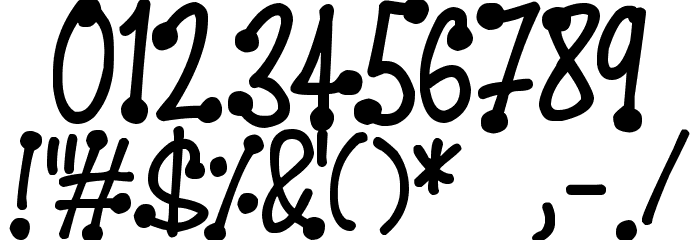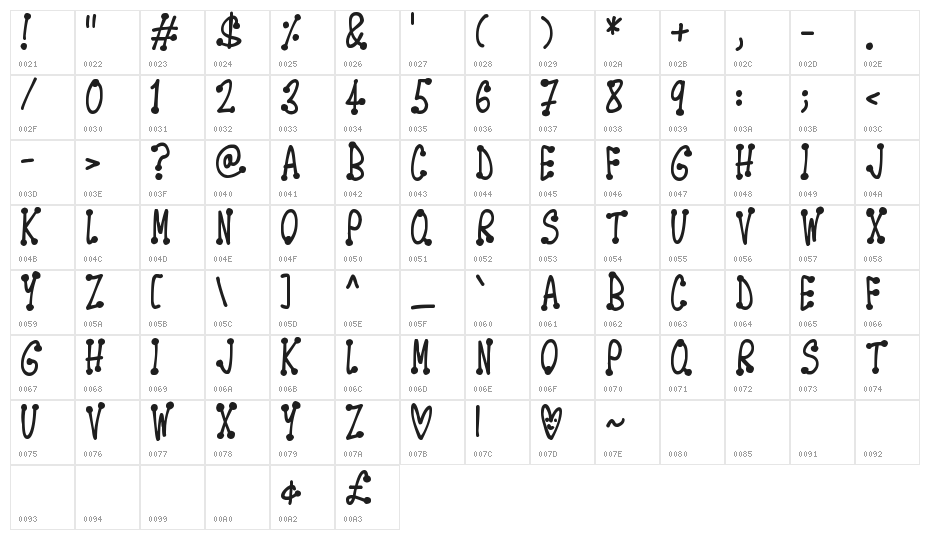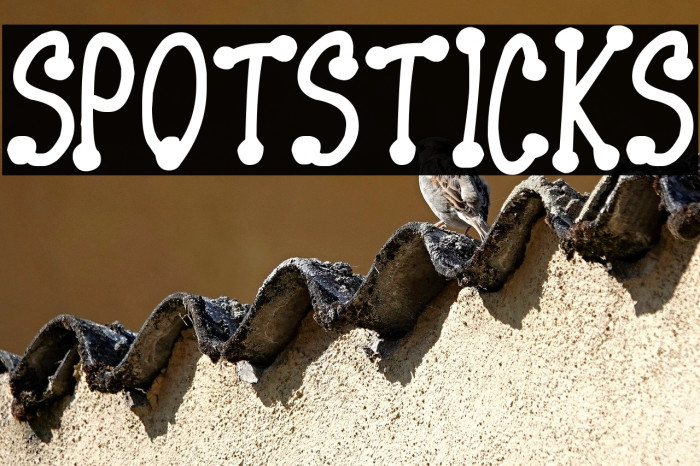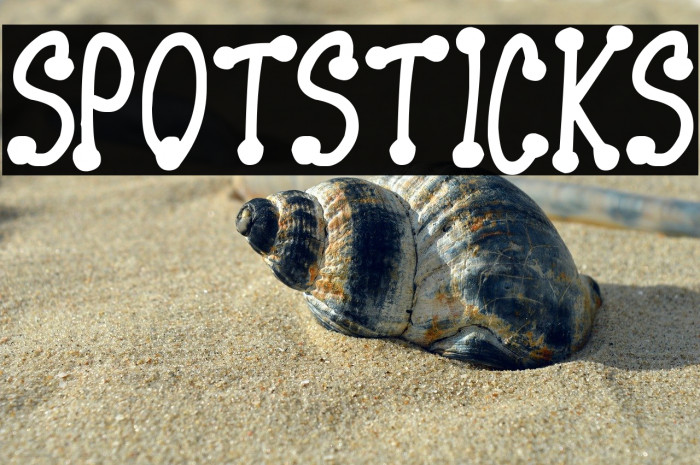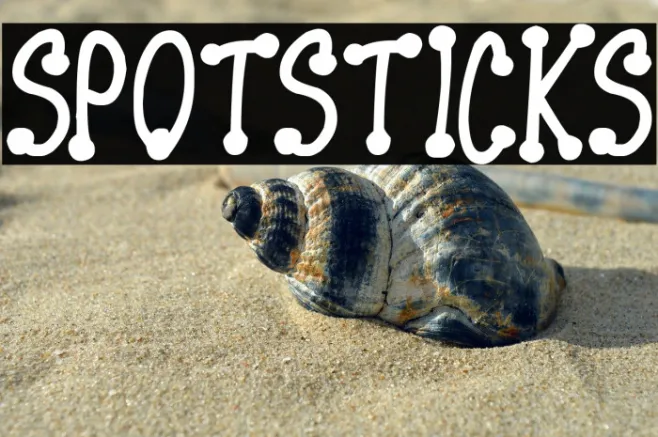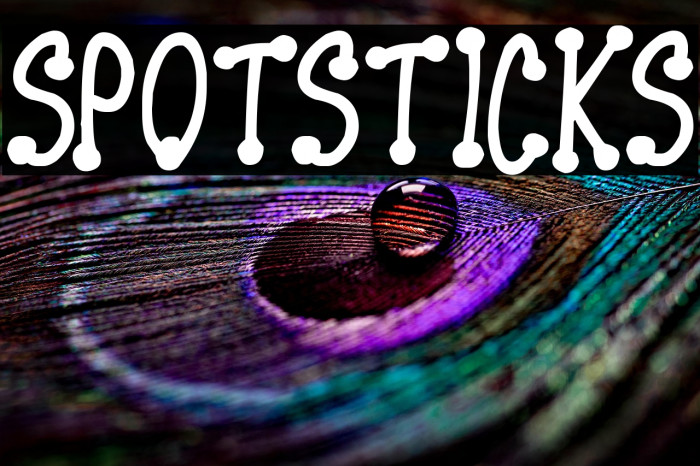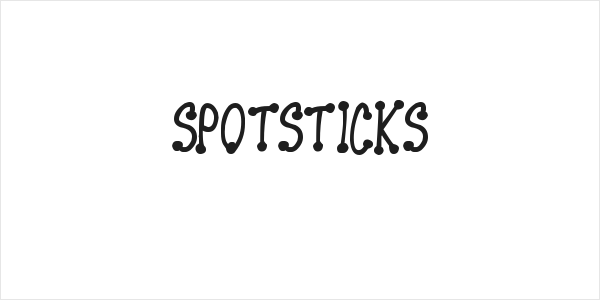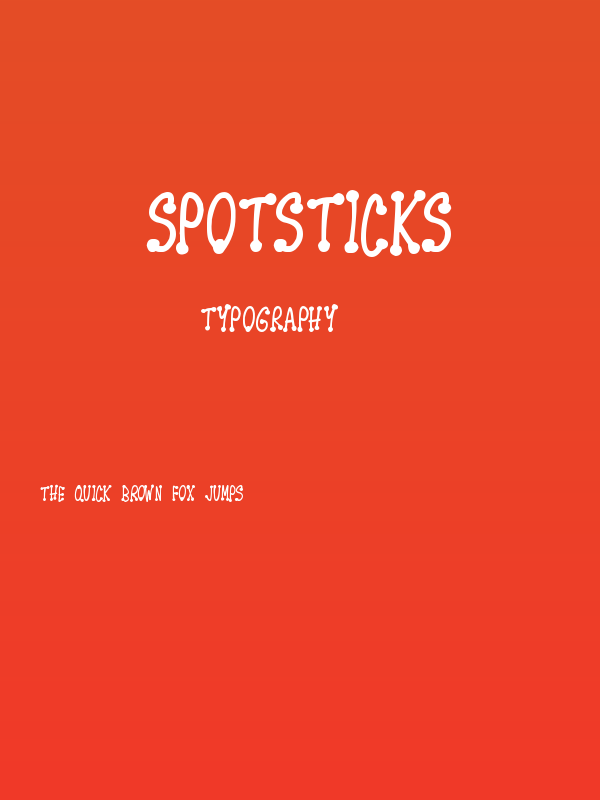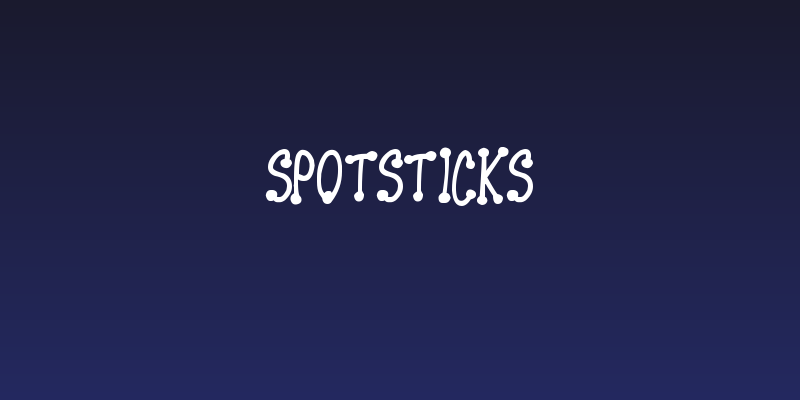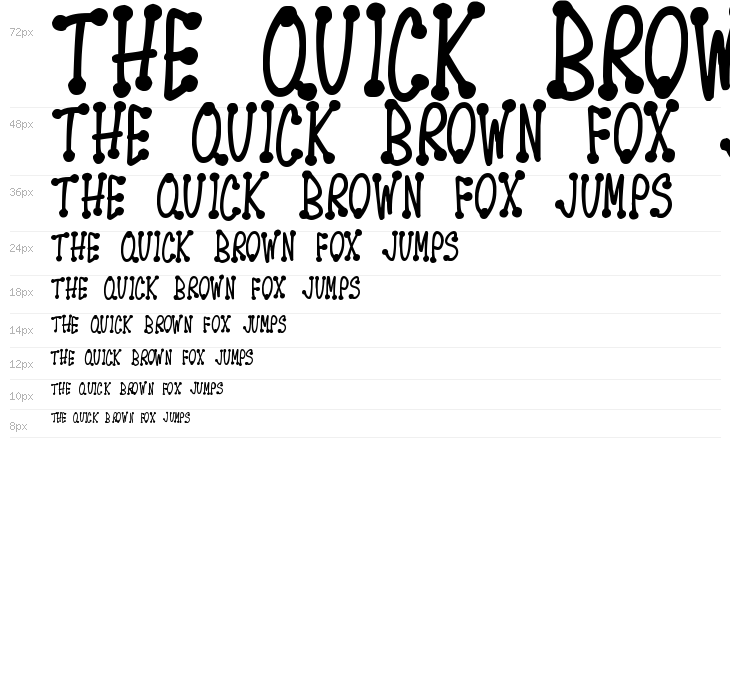
Spotsticks Font
Spotsticks Description
This playful and energetic font features bold, rounded characters with a unique dot-like embellishment at the end of each stroke, giving it a lively and whimsical appearance. The uppercase and lowercase letters maintain a consistent style, with a slightly irregular, hand-drawn quality that adds to its charm. The numbers and special characters follow the same design principles, ensuring a cohesive look across all elements. The font's distinct personality makes it ideal for creative and informal projects, where a touch of fun and individuality is desired.